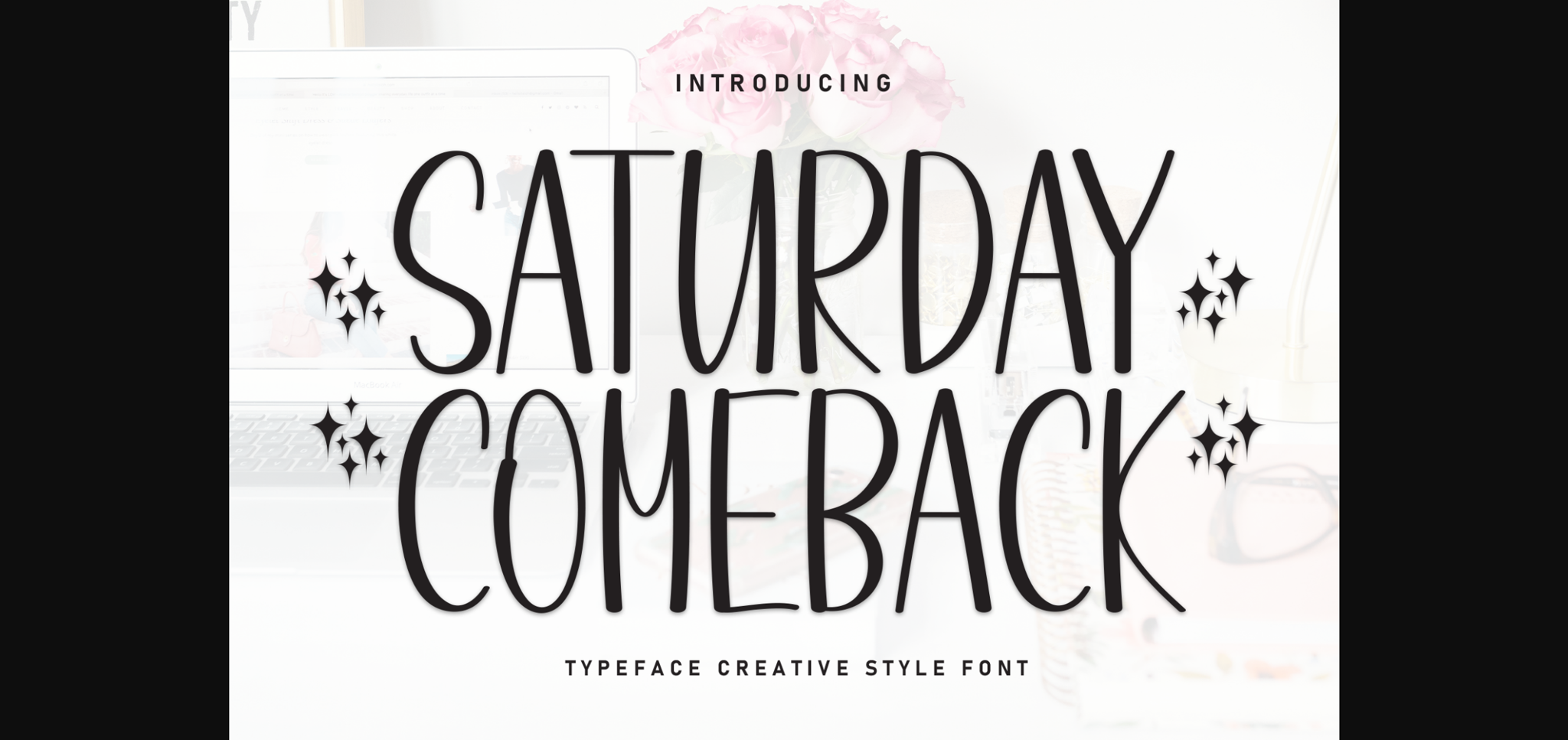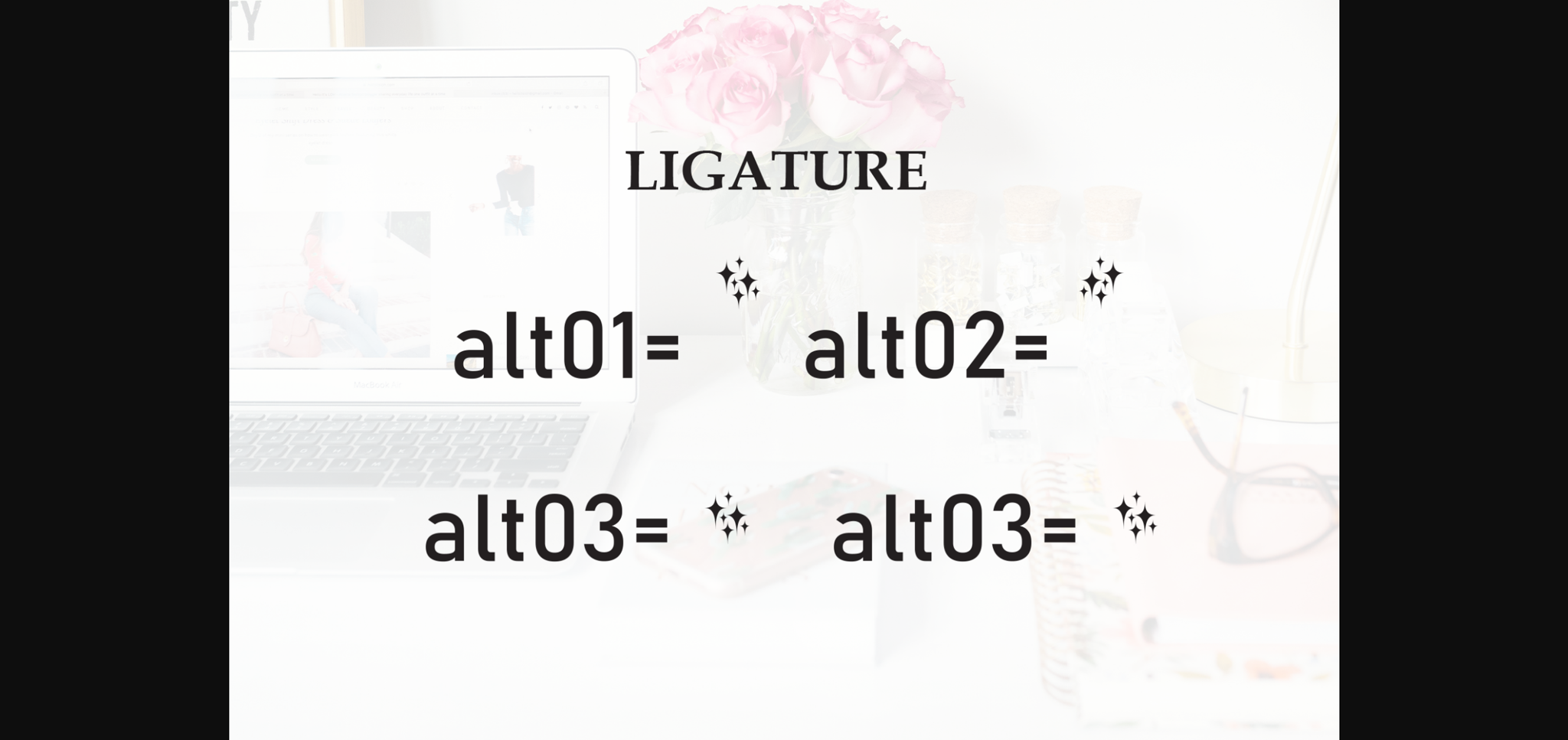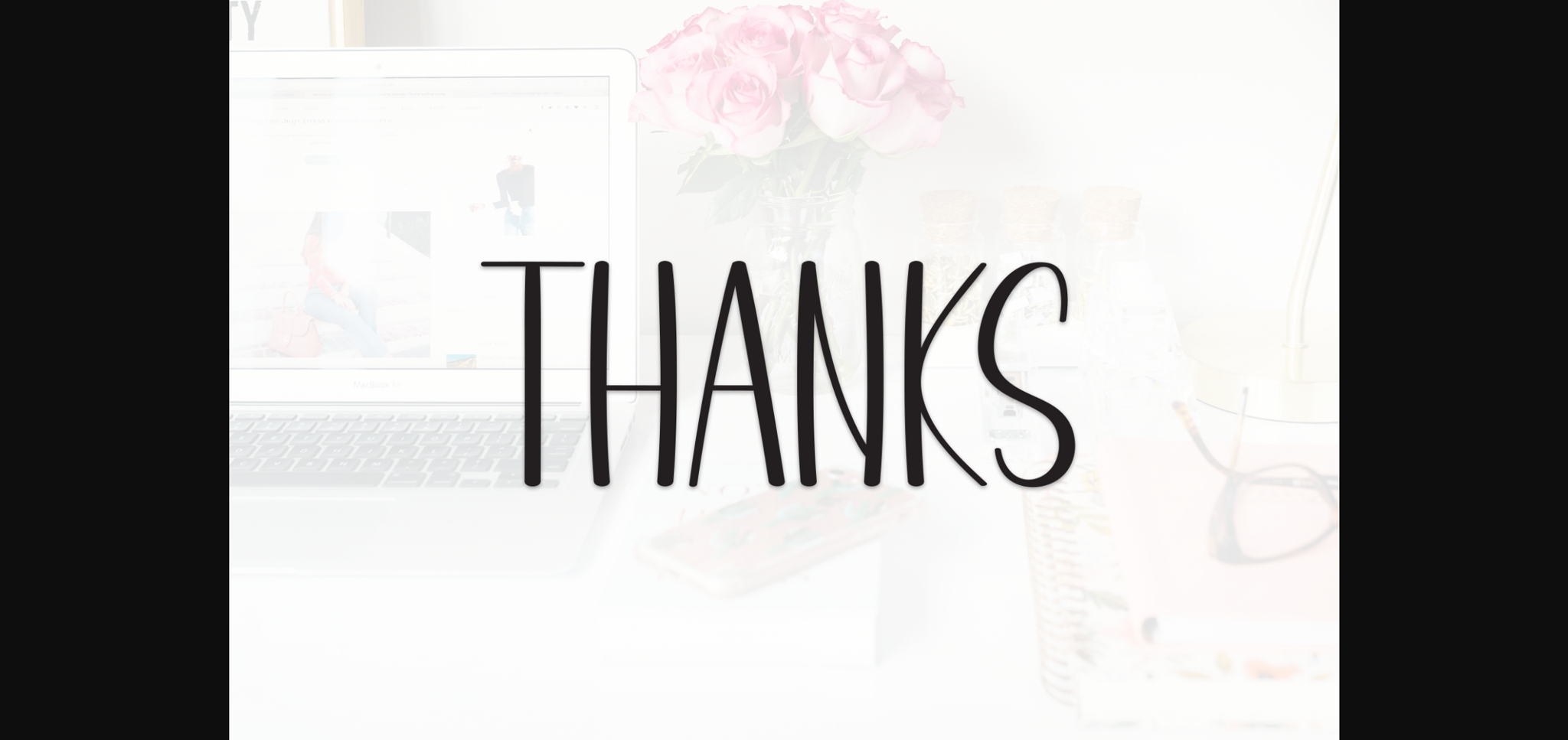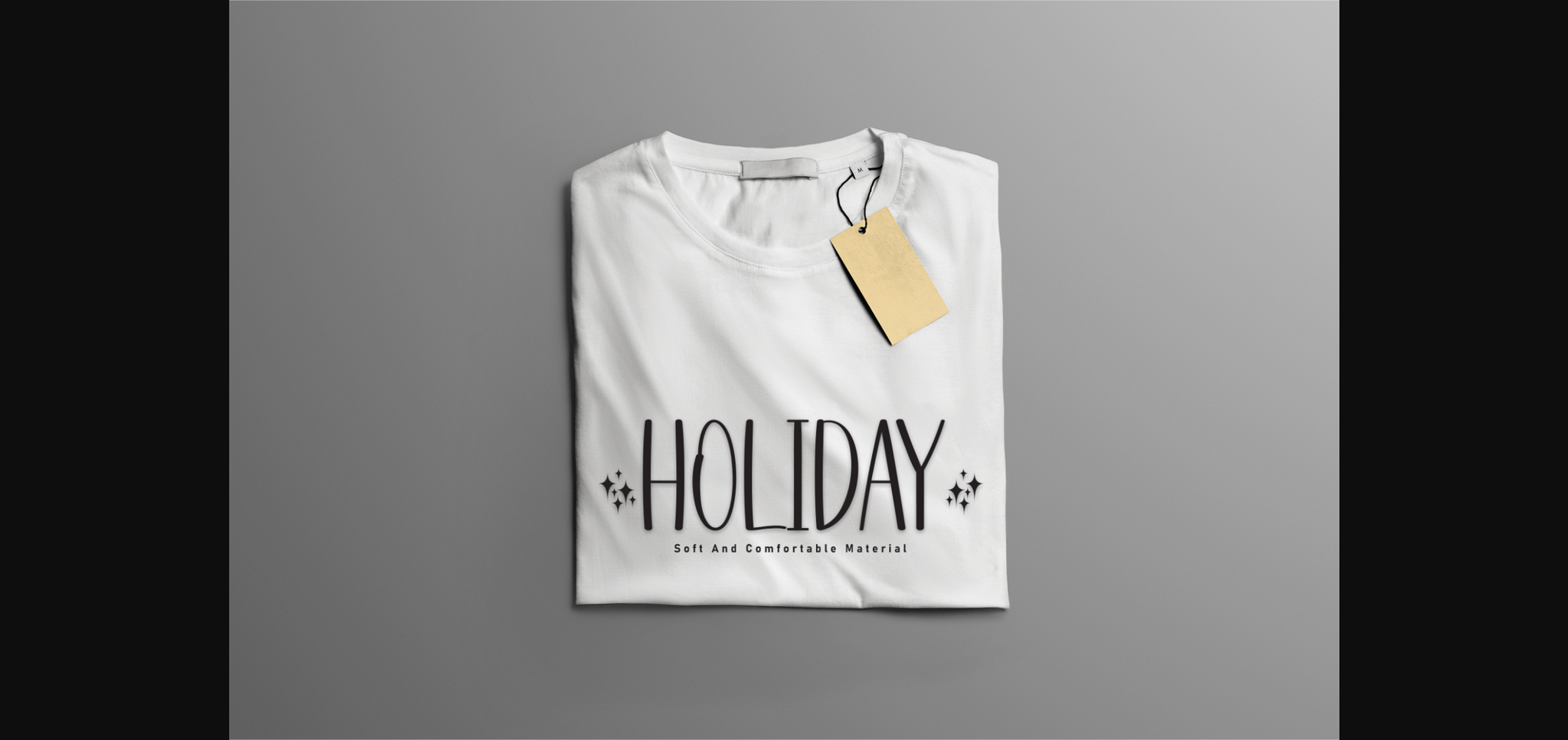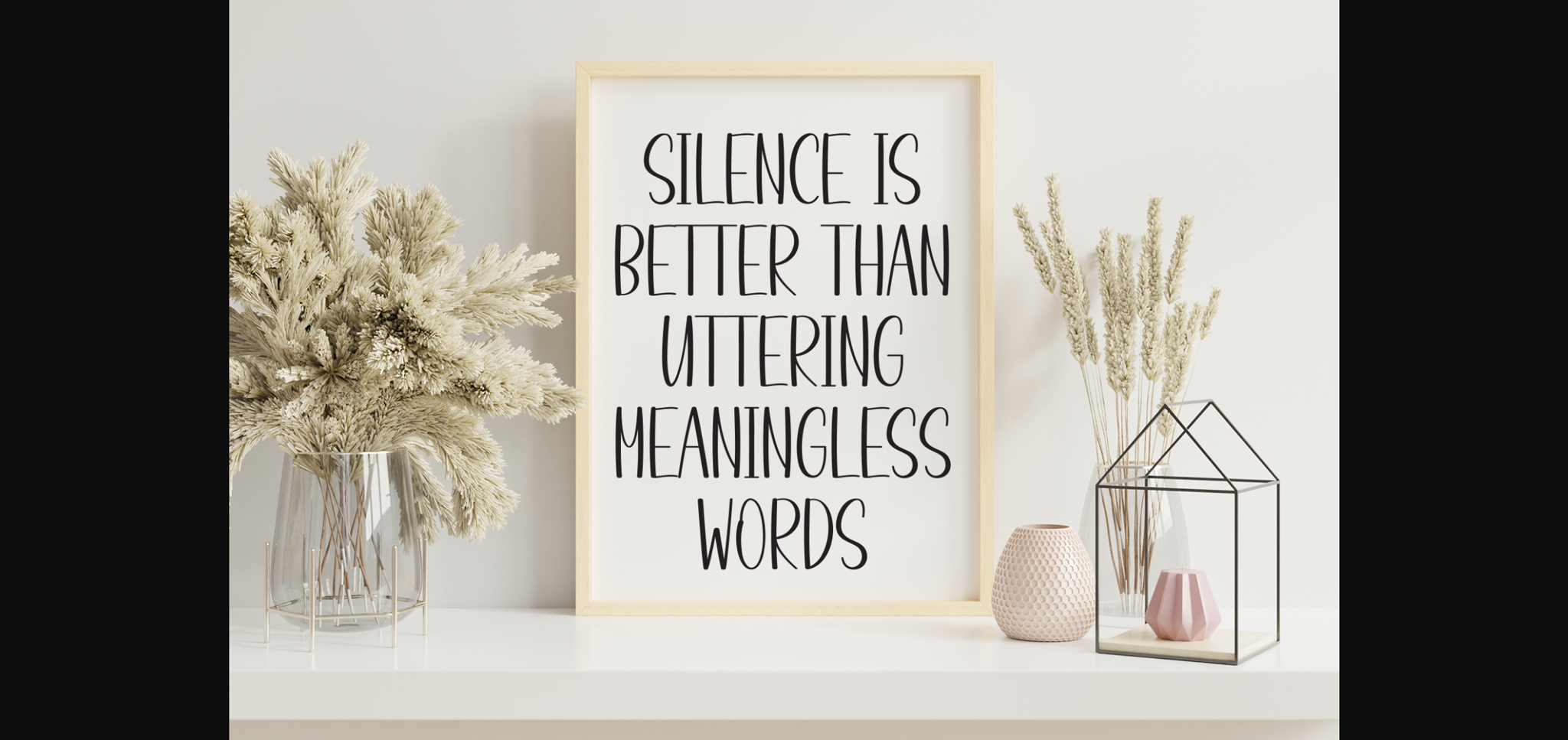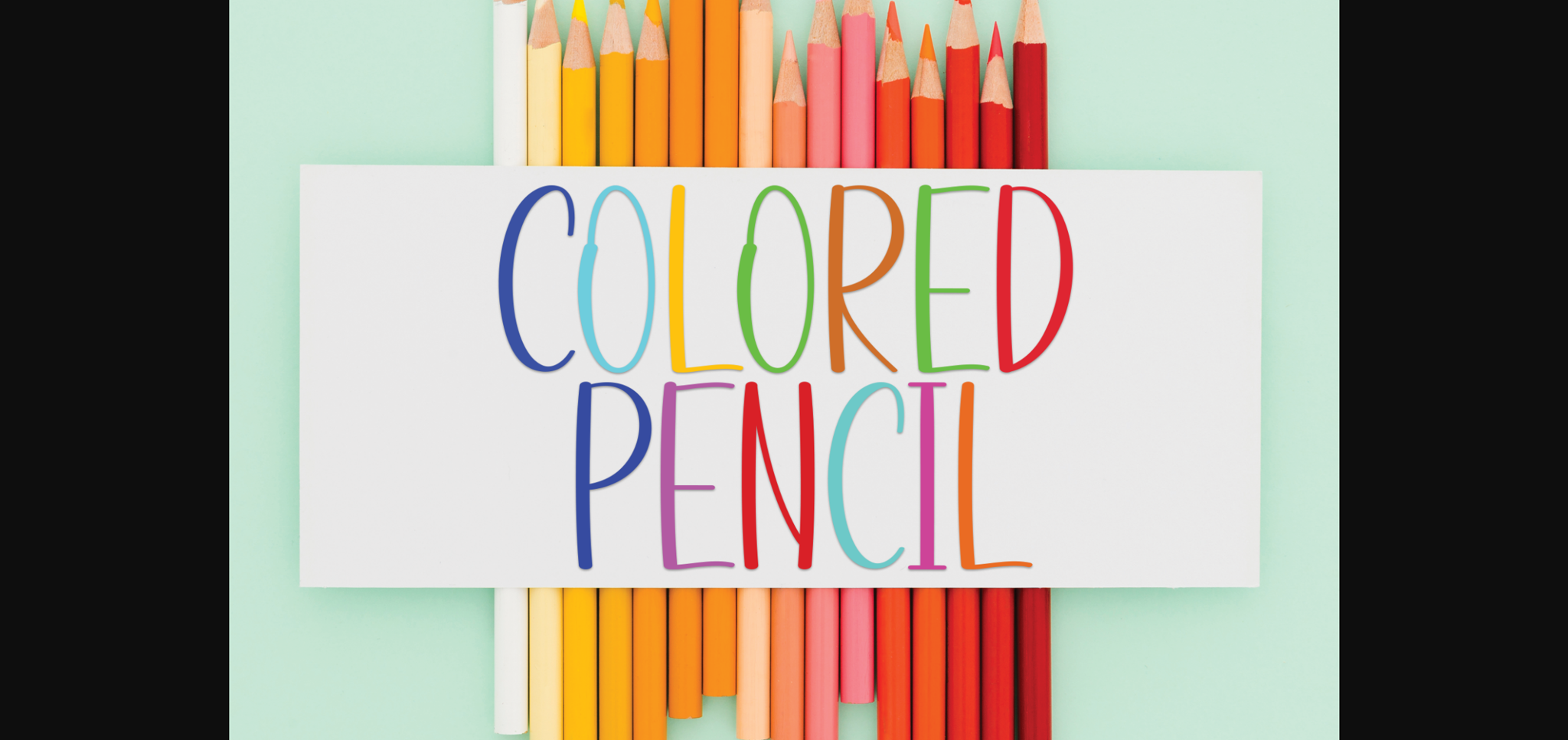
About Saturday Comeback Font
Saturday Comeback is a sweet and friendly sans-serif font that twinkles with innocence and warmth. With tender letterforms and a playful aura, it captures the charm of childhood dreams. Ideal for projects seeking a lighthearted and endearing aesthetic, Saturday Comeback adds a delightful and nostalgic touch to your creative expressions.